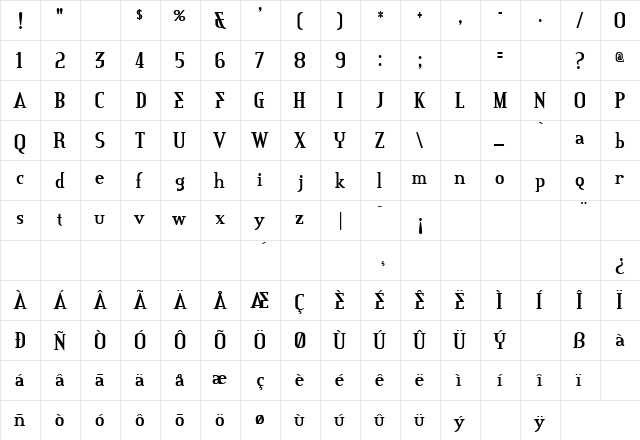
Credit River Regular
| Foundry | Larabie Fonts |
Design Context for Credit River Typeface
Credit River offers clean, dependable letterforms without strong stylistic allegiance, making it a practical choice for designers who need flexibility.